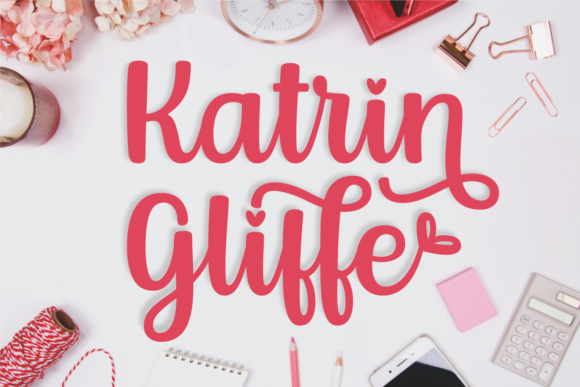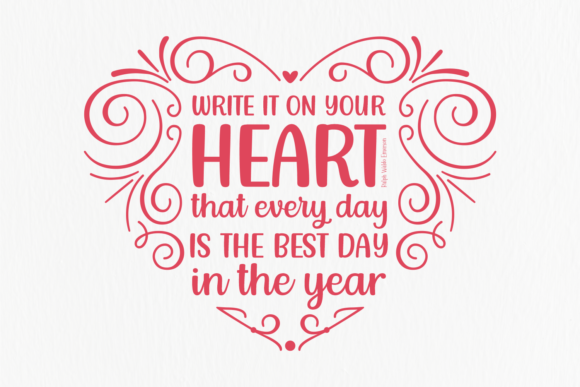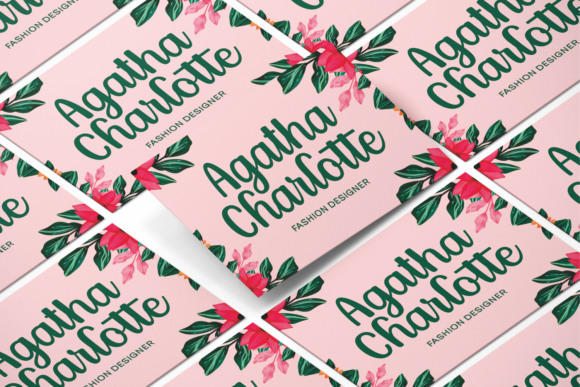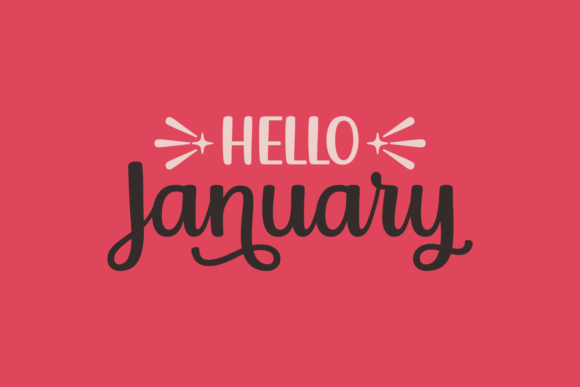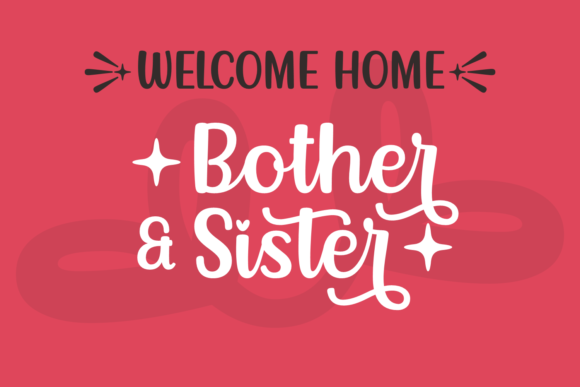
About Katrin Gliffe Font
Katrin Gliffe is a playful script font with a contemporary atmosphere and impeccable form, inspired by timeless classic calligraphy. Not too thin and not too thick, balanced and varied, this font was designed to enhance the beauty of your projects.